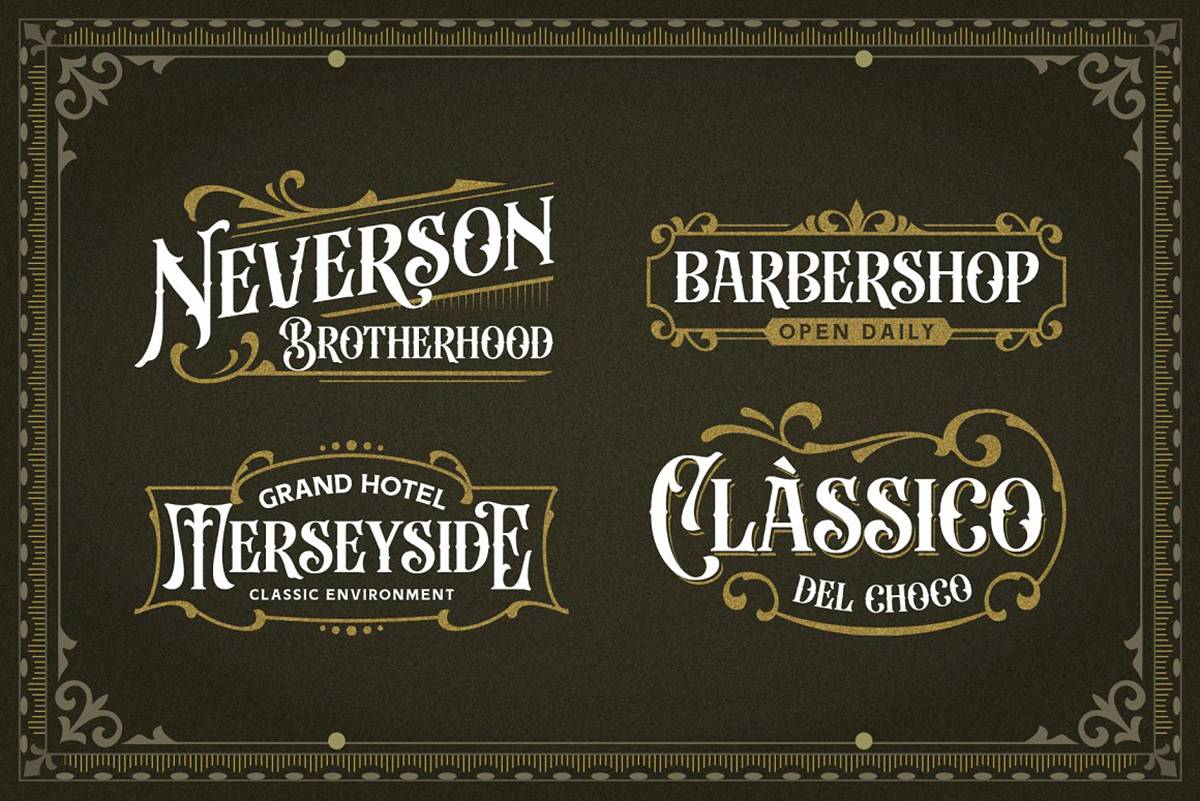
Beardsons is a bold, condensed serif font with a vintage, ornamental style that features intricate, decorative details on select uppercase letters. Its tall, narrow letterforms with high contrast between thick and thin strokes create a dramatic, antique feel, making it ideal for vintage branding, headlines, and decorative uses where a striking, old-world charm is desired. This font works best for logos, posters, and packaging that seek to evoke elegance and a historical flair.
Beardsons Font
About Beardsons Font